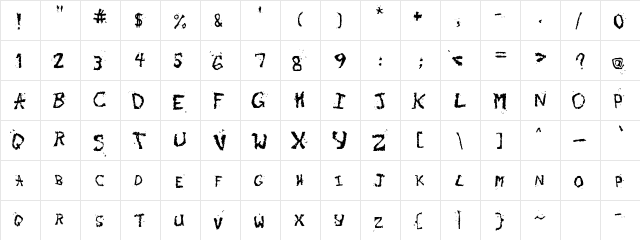
Phoenix Grunge Regular
Design Context for Phoenix Grunge Typeface
Phoenix Grunge trades polish for personality, using distressed and eroded forms to bring grit and attitude to creative work.
A strong fit for alternative music projects, graffiti-adjacent design, and anything that deliberately resists polish.
Pro Tip: Use Phoenix Grunge at larger sizes where the texture and irregularity of each letterform can be clearly seen — it loses its character at small sizes.